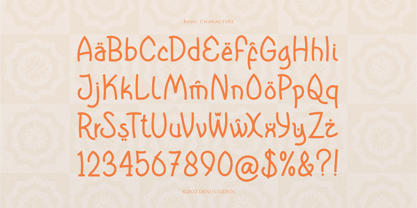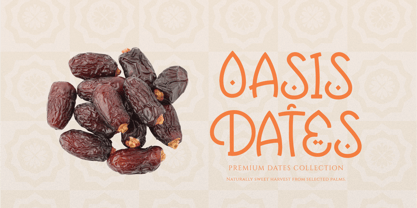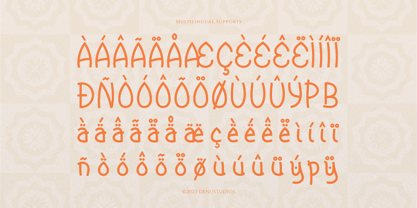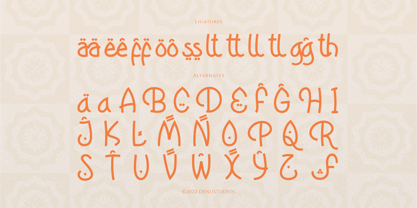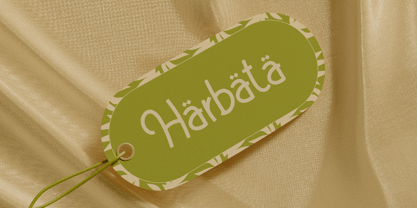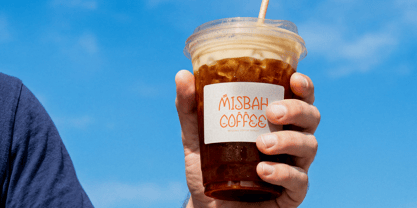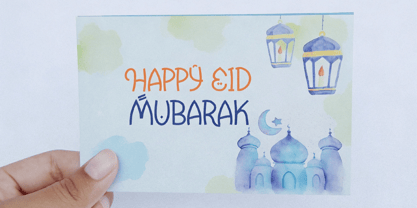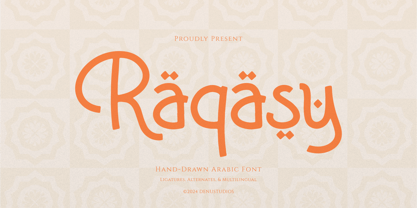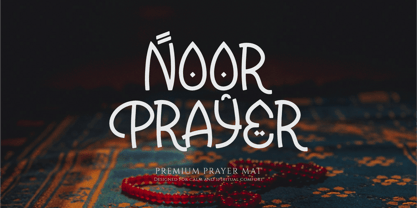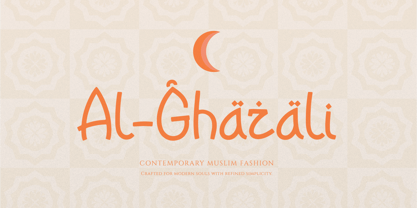
Raqasy
The Raqasy Font Family was designed by Dede Nugraha and published by Denustudio. Raqasy contains 1 styles. More about this family
Raqasy | Hand Drawn Arabic, from Denustudios, suitable for any projects such as: logos, branding projects, homeware designs, product packaging, mugs, quotes, posters, shopping bags, t-shirts, book covers, name card, invitation cards, greeting cards, label, photography, watermark, special events, and all your other lovely projects that need Arabic a taste.